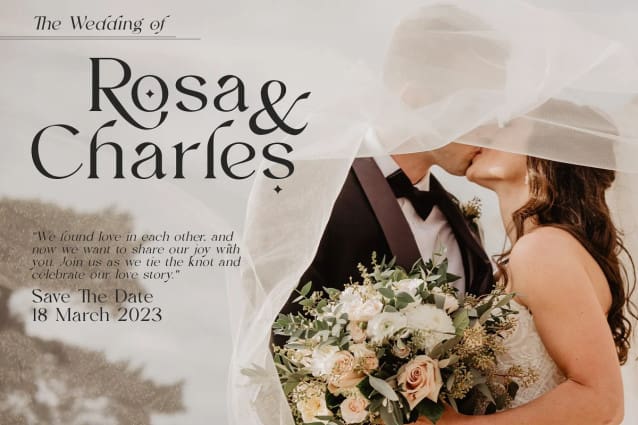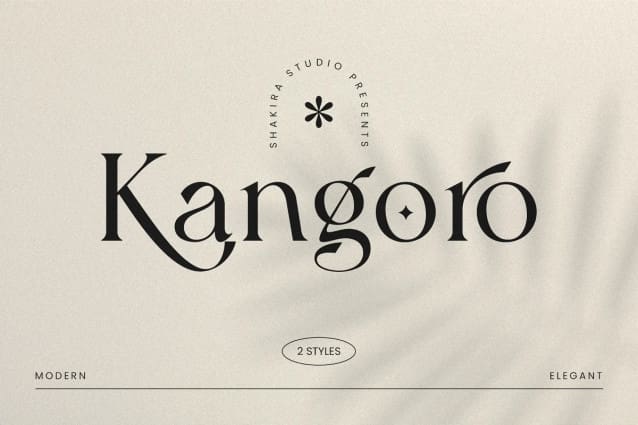
Kangoro Font
Kangoro Font, an exquisite modern luxury serif font that embodies timeless elegance and aesthetic appeal. This typeface is designed to elevate your designs with a touch of sophistication, making it the perfect choice for projects that require a blend of contemporary luxury and classic charm.
Kangoro Font features gracefully crafted letterforms with clean lines and delicate serifs, exuding a sense of refinement and opulence. Its sleek design captures the essence of modern luxury, while the carefully designed serifs add a touch of traditional beauty, creating a harmonious and captivating visual experience.
Versatility is another hallmark of Kangoro, as it complements a wide range of design applications. Whether you’re working on high-end branding, editorial layouts, invitations, or any project that requires an aura of luxury, Kangoro will deliver unparalleled elegance.